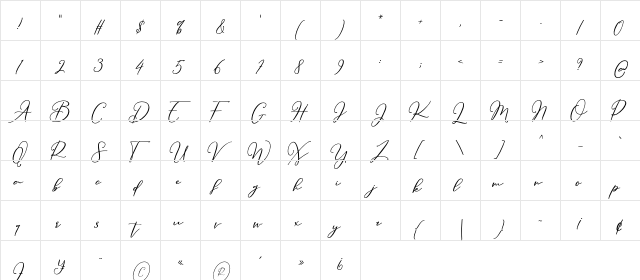
William Regular
| Foundry | Aqeela Studio |
| Designer | Muhammad Nasir |
Design Context for William Typeface
William is a composed and adaptable typeface that performs quietly and consistently across a wide range of design contexts.